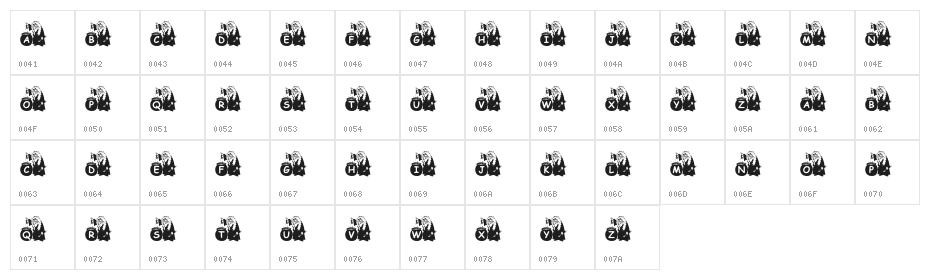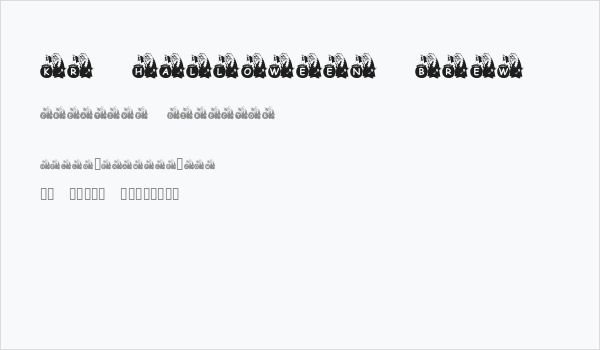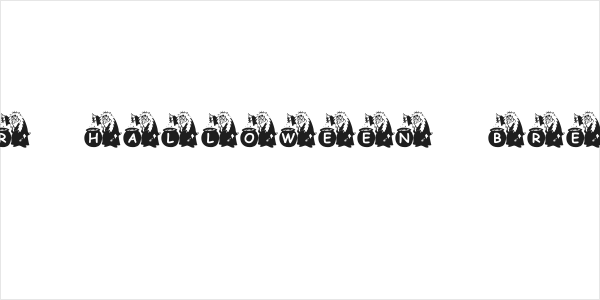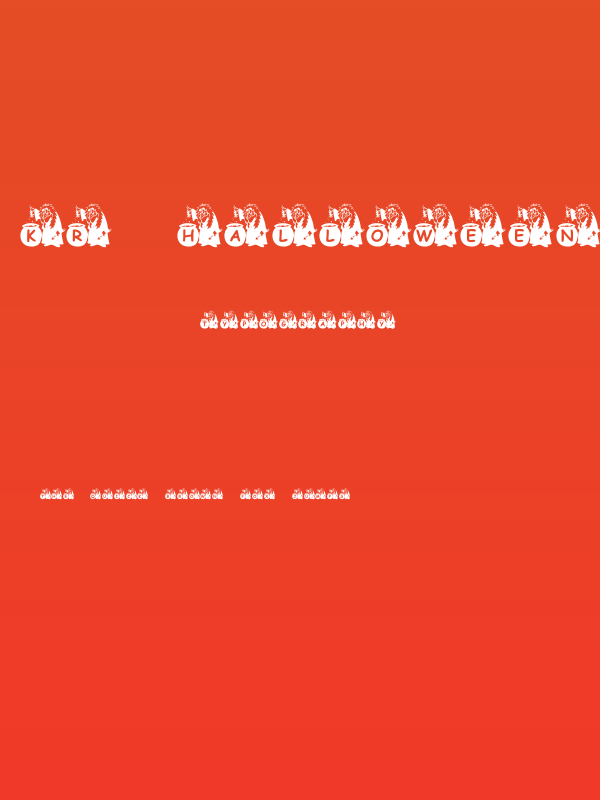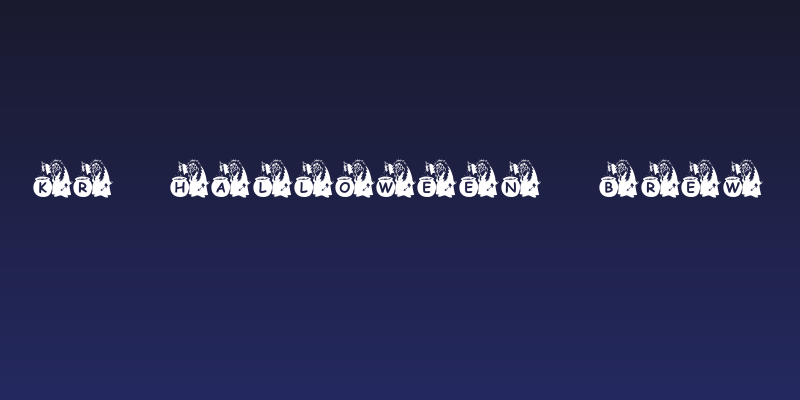
KR Halloween Brew Font
KR Halloween Brew Description
This font features a unique and playful design, perfect for Halloween-themed projects. Each character is encased in a circular background with a spooky witch silhouette perched on top, adding a whimsical and eerie touch. The letters are bold and clear, ensuring readability while maintaining a decorative flair. The combination of the witch motif and the bold lettering creates a distinctive style that captures the essence of Halloween festivities.
| Proposed Projects | Ideal for Halloween party invitations, themed posters, spooky event flyers, and decorative signage. |